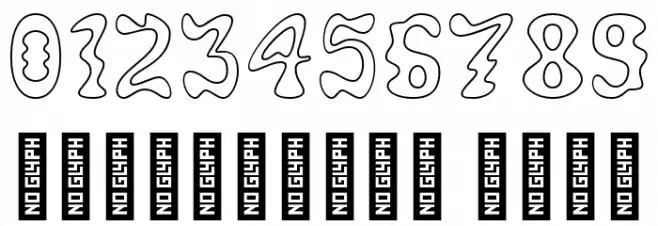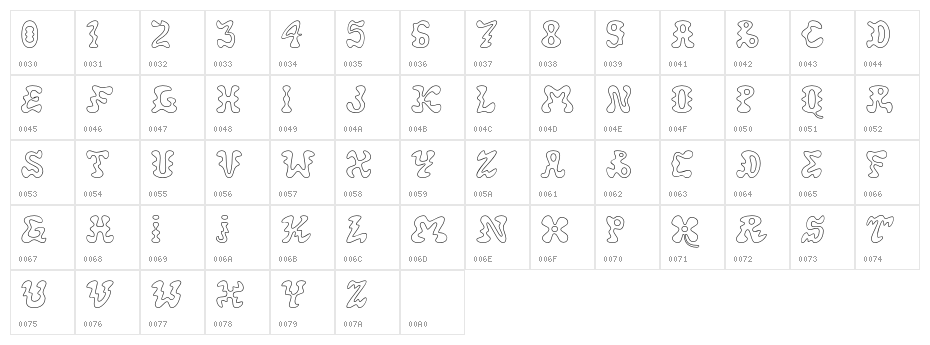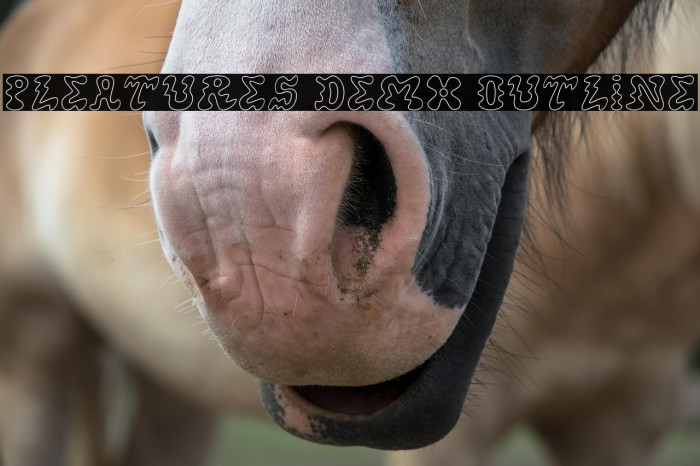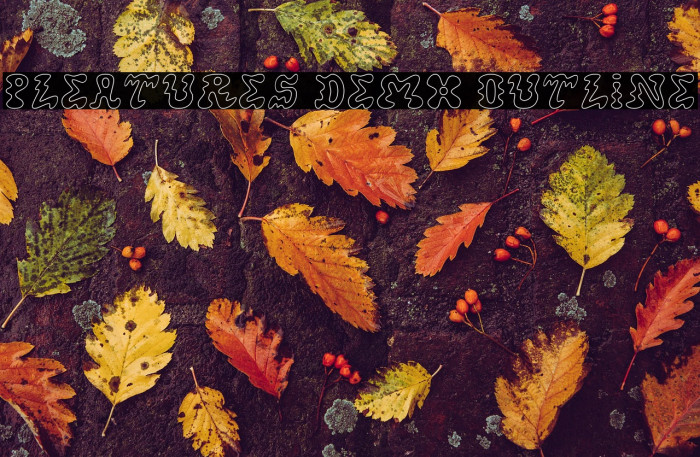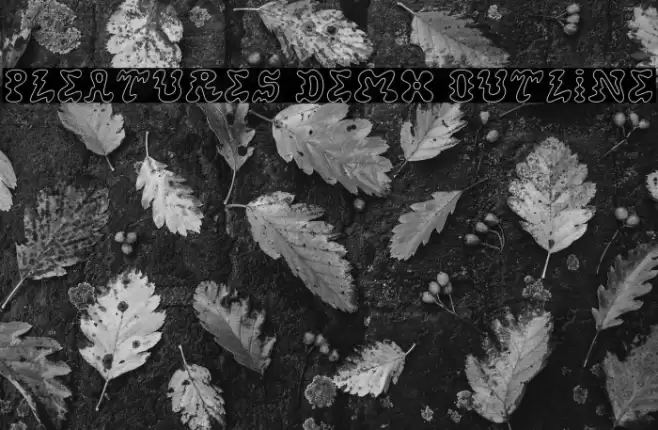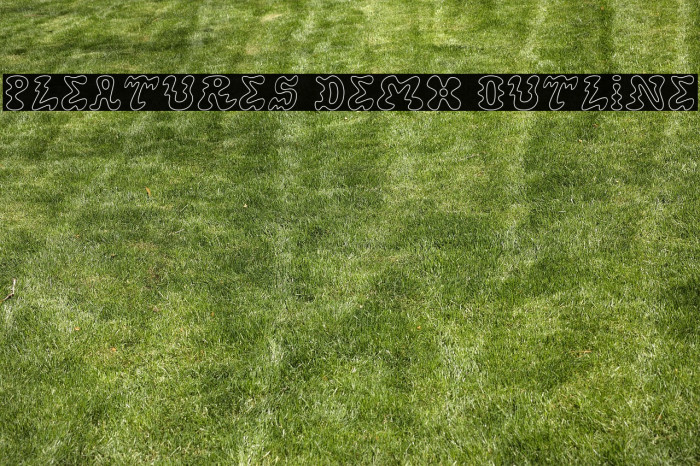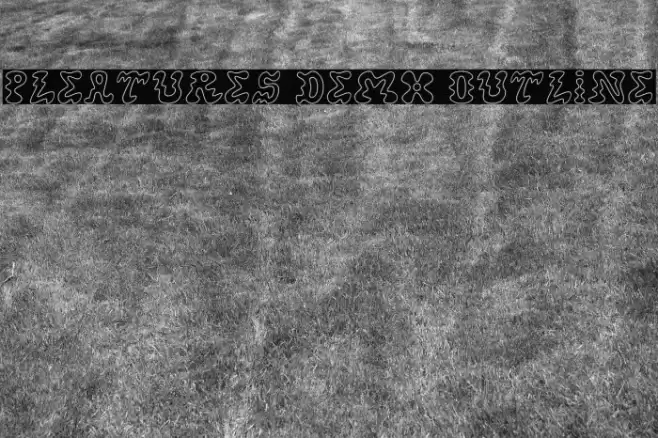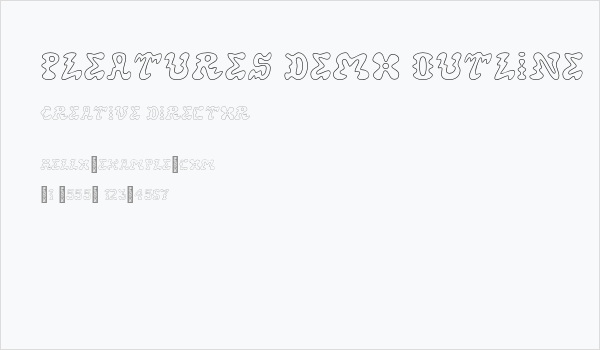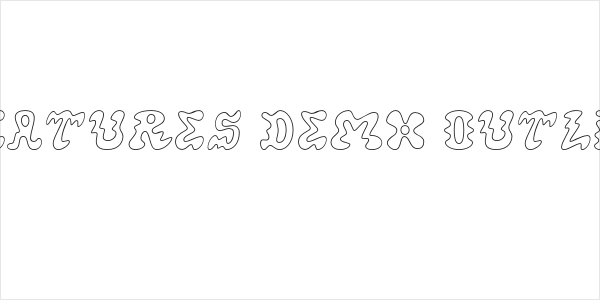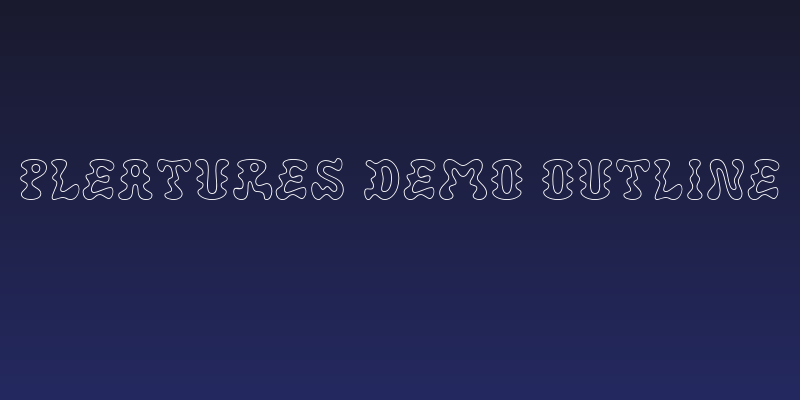
Pleatures Demo Outline Font
Pleatures Demo Outline Description
This font features a playful and whimsical outline style, with each character having a unique, wavy contour that adds a sense of movement and fun. The letters are bold and eye-catching, making them suitable for designs that require a standout appearance. The uppercase and lowercase letters maintain a consistent style, with the numbers following the same playful theme. The font lacks special characters, as indicated by the placeholders. Its overall design is decorative, making it ideal for creative projects.
| Overall Style | Playful, Whimsical, Decorative |
| Proposed Projects | Ideal for children's book covers, playful branding, party invitations, and creative posters. |